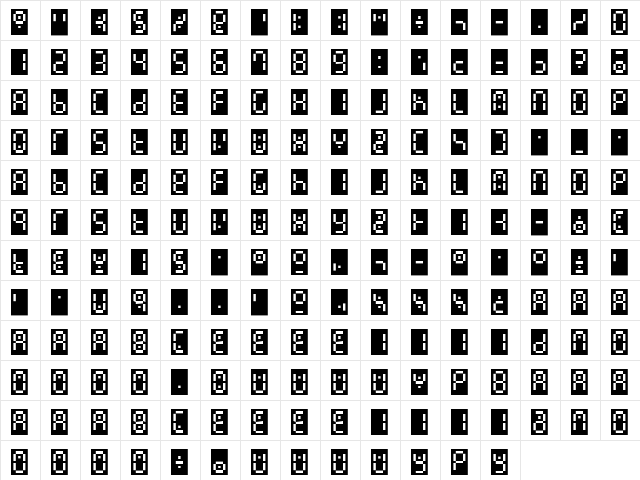
Readout Medium
| Foundry | eBoy: Steffen Sauerteig, . Published by FontShop International. FontFont Release |
Design Context for Readout Typeface
Readout is a composed and adaptable typeface that performs quietly and consistently across a wide range of design contexts.